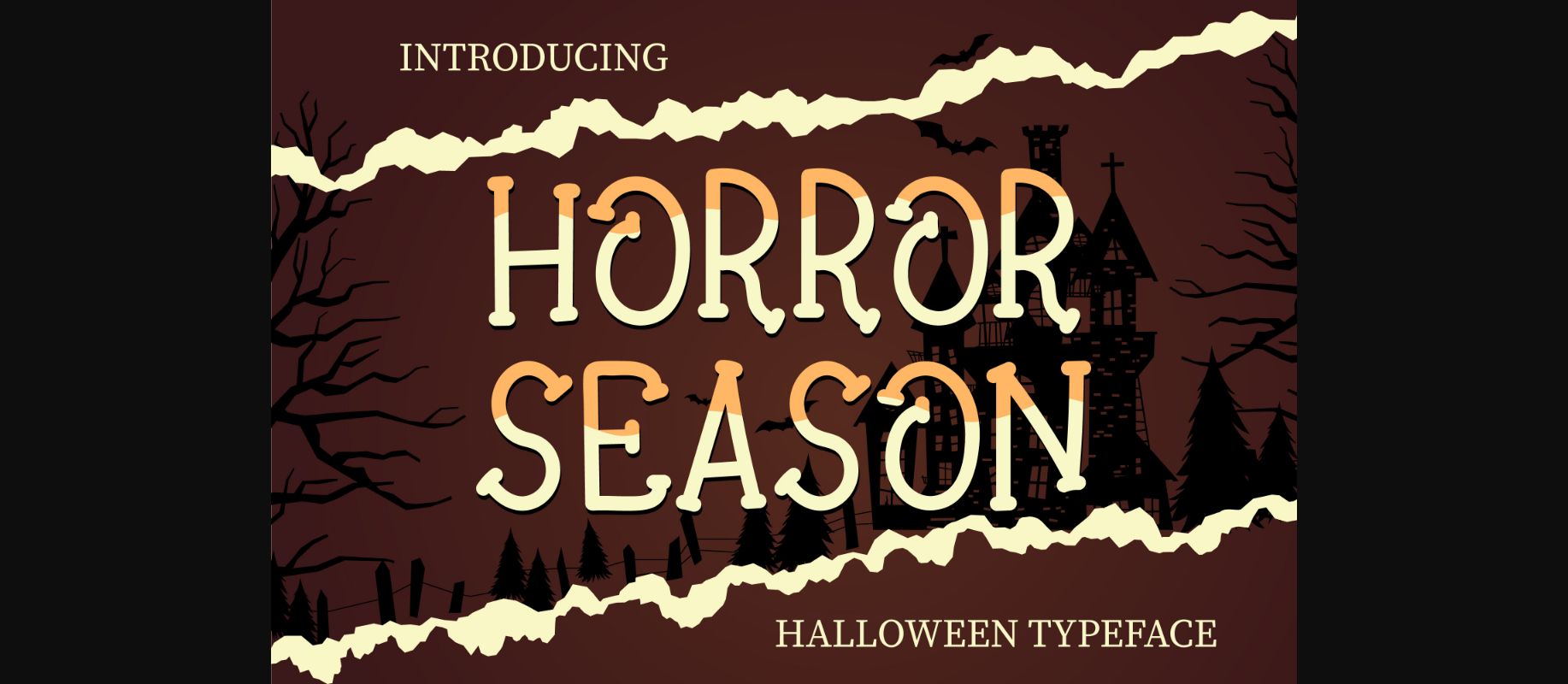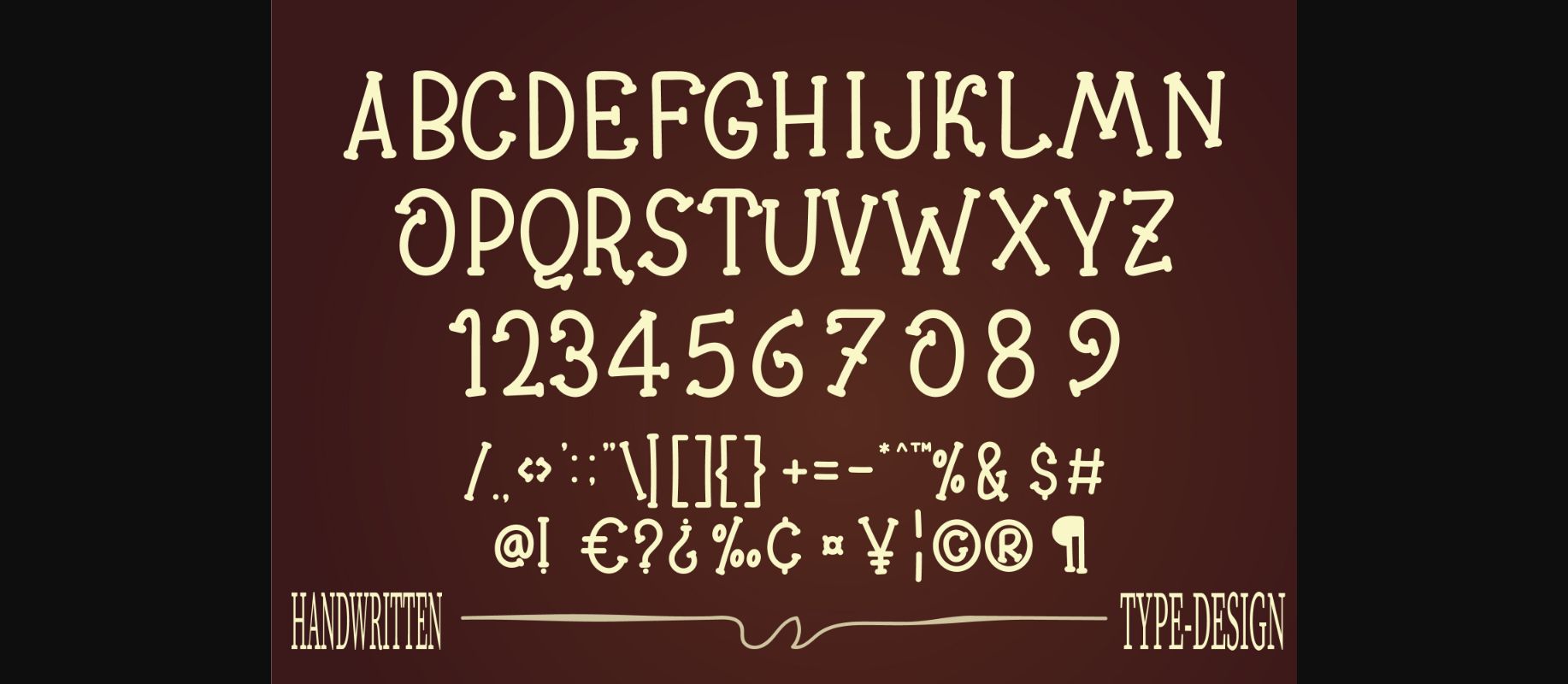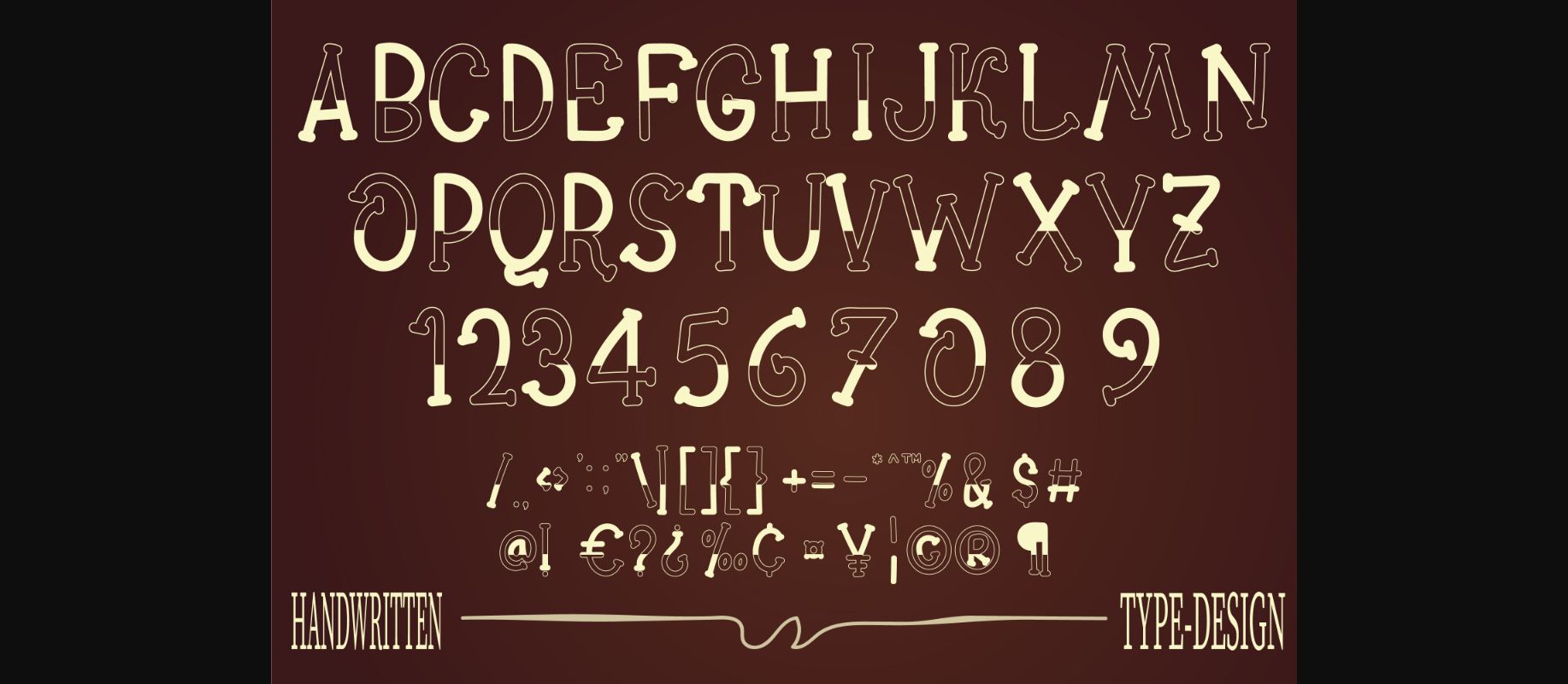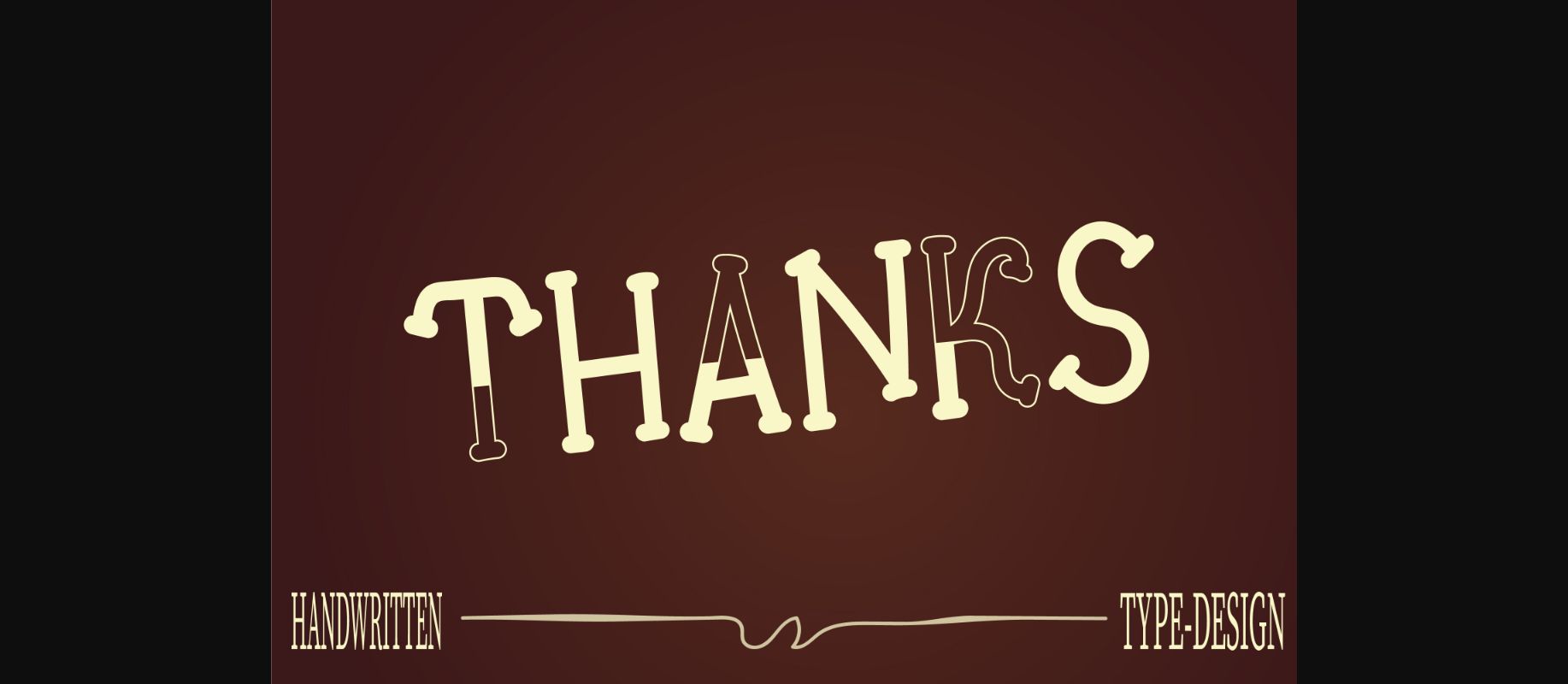
Horror Season Font
About Horror Season Font
Horror Season, a whimsical all-caps serif font, possessed a mischievous charm. When used in cards, ads, social media, or and enjoy the results! great -on cards, promotional ads, social media posts, product packaging, and others. But during Halloween, something extraordinary happened. The font’s letters came alive, haunting the village with their wicked serifs and ghostly whispers. A bewitching tale unfolded, forever etching the font’s mystique.